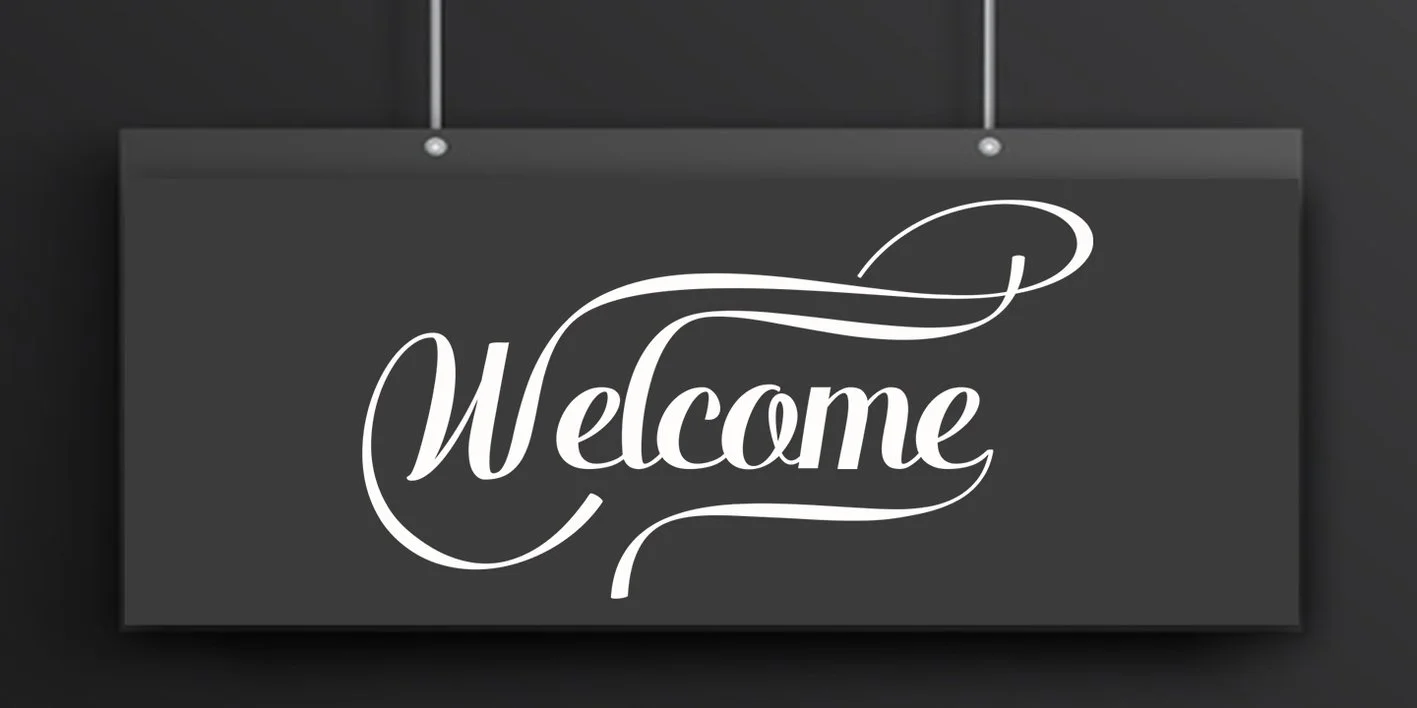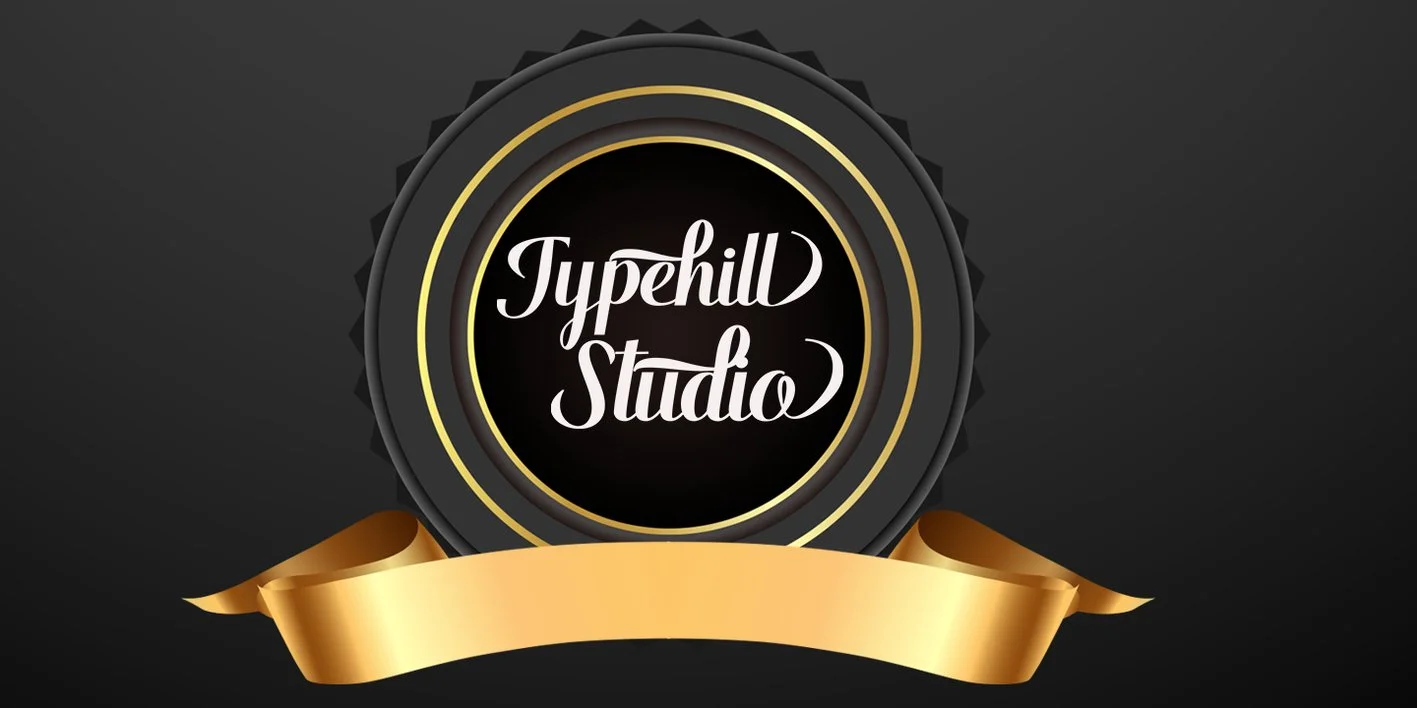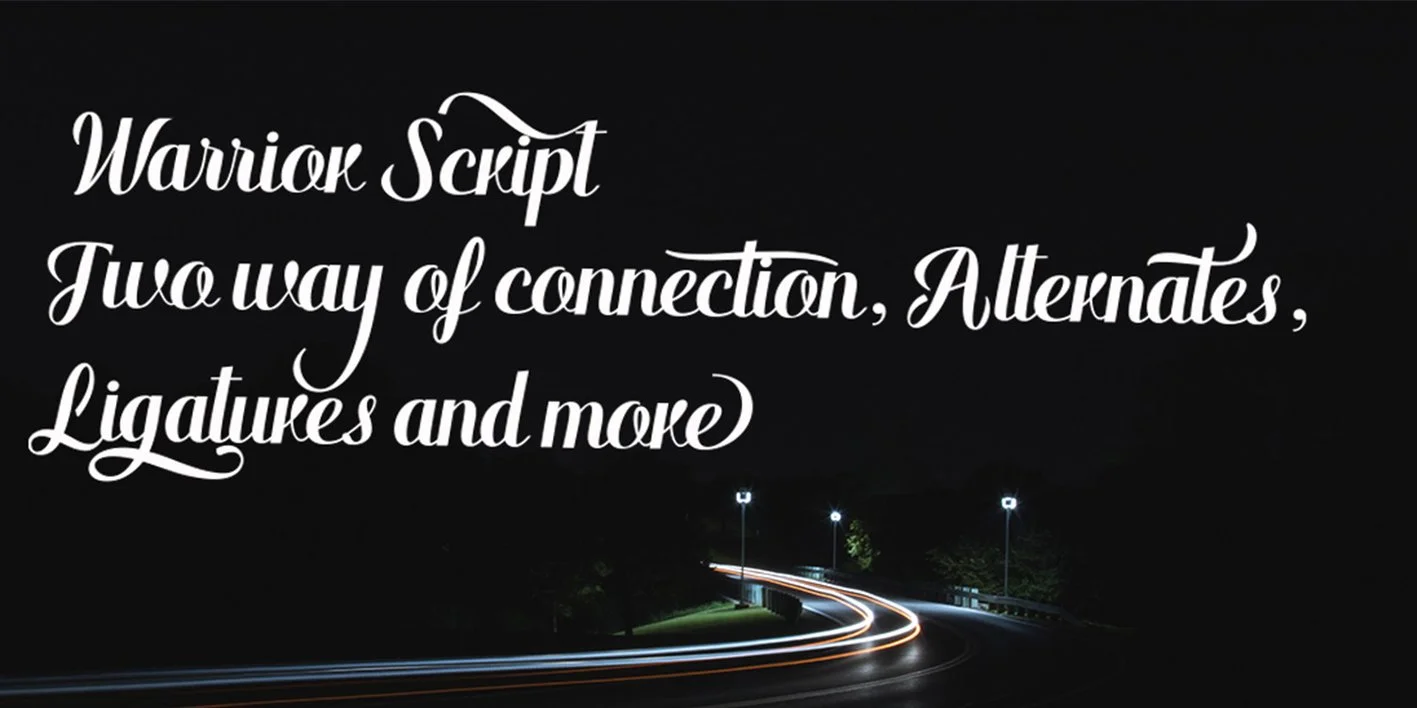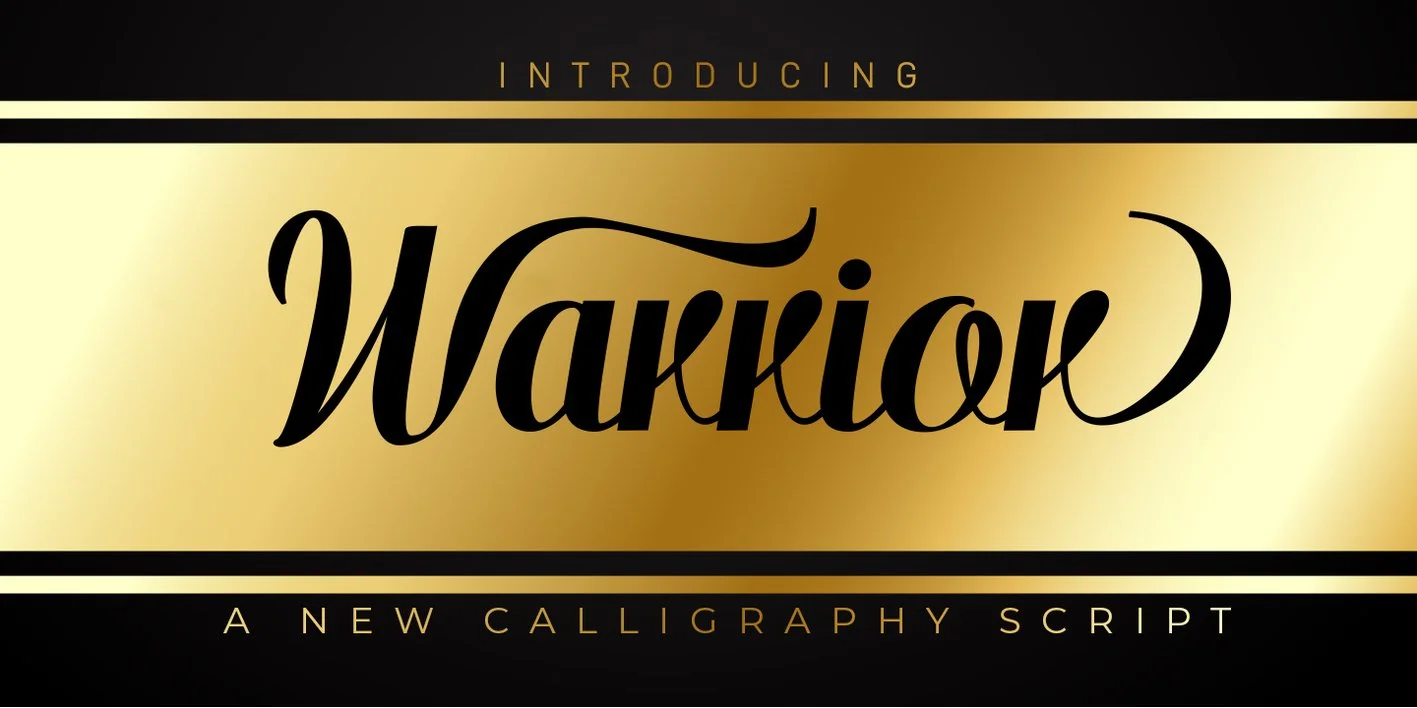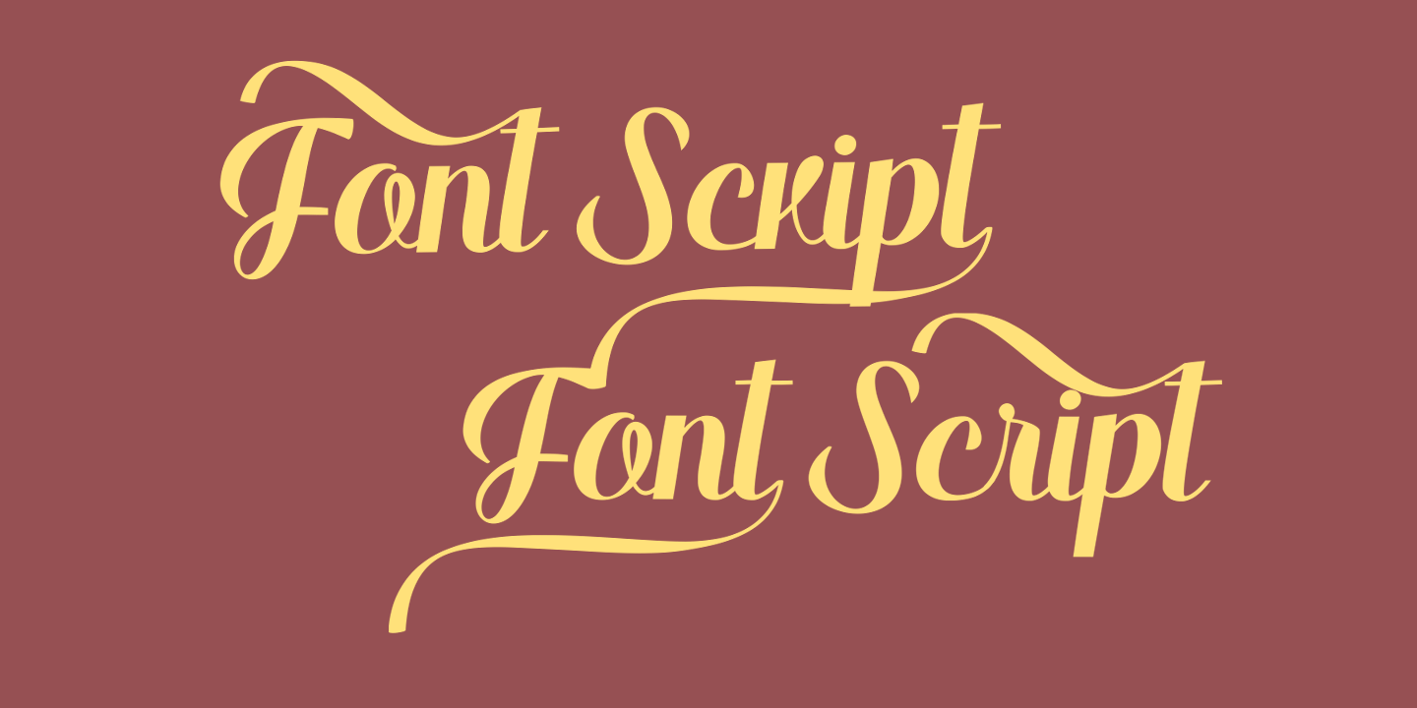
Warrior Script Font
Warrior Script Font is ideal for motivational fitness campaigns, martial arts academy branding, military veteran organizations, competitive sports team logos, personal training studio signage, obstacle course race promotions, tactical gear packaging, strength training merchandise, warrior mindset workshops, and inspirational achievement certificates. This powerful typeface brings battle-tested strength and unwavering determination to any courage-focused design project.
Warrior Script Font is exciting because it embodies the indomitable spirit and fierce determination of true warriors, featuring bold script letterforms that convey strength forged through adversity and the unbreakable mental toughness required to overcome any challenge. Its heroic character instantly inspires courage, resilience, and the warrior mindset that conquers impossible odds.
The Warrior Script Font family includes Regular and Bold weights with battle-inspired alternates, strength flourishes, tactical ornamental elements, and victory symbols that enhance the warrior aesthetic, providing motivational designers with powerful tools for creating typography that ignites the fighting spirit and celebrates the warrior ethos.
Warrior Script Font offers fitness and motivation professionals access to one of the most inspirationally powerful typefaces available for warrior-themed design applications. This exceptional font has gained recognition among military fitness programs, martial arts schools, and motivational brands for its ability to communicate mental toughness and warrior spirit through typography that embodies the relentless pursuit of victory.
Fitness marketers appreciate Warrior Script Font for its exceptional ability to inspire courage and determination through dynamically crafted letterforms. The font's battle-tested character and strength-focused details create immediate associations with overcoming obstacles, pushing through pain barriers, and the mental fortitude required to achieve victory against overwhelming odds, resonating with audiences seeking transformational challenges.
The design philosophy behind Warrior Script Font celebrates the warrior code of honor, discipline, and relentless pursuit of excellence, making it particularly effective for fitness brands, martial arts programs, and motivational campaigns that help people discover their inner strength. Training teams working on elite performance programs find this font essential for inspiring warrior mindset.
Whether used for elite military training programs, competitive martial arts tournaments, or transformational fitness challenges, Warrior Script Font delivers the perfect combination of inspirational power and warrior authenticity. Its battle appeal and heroic spirit make it an indispensable choice for brands that forge champions, develop warrior mindset, and celebrate the unbreakable spirit of true fighters.